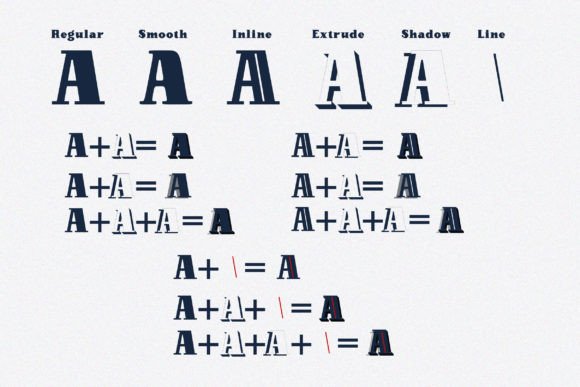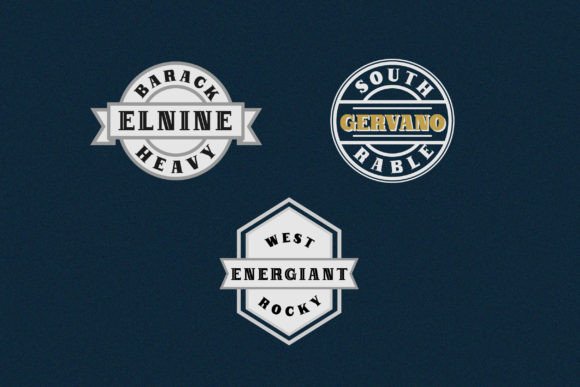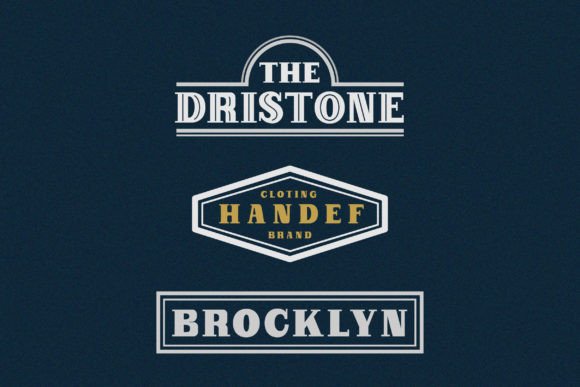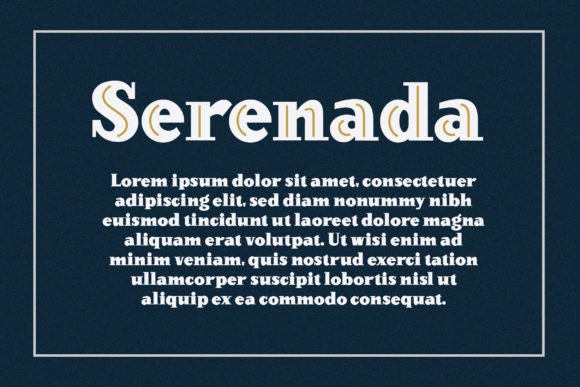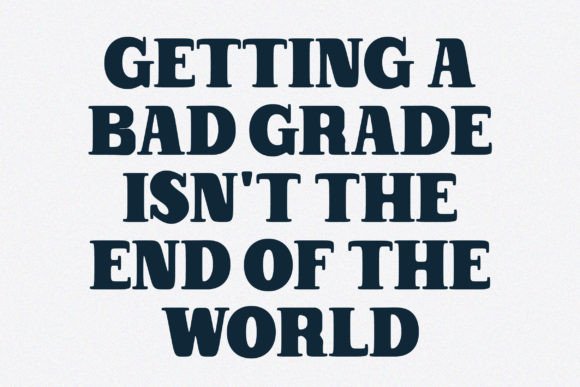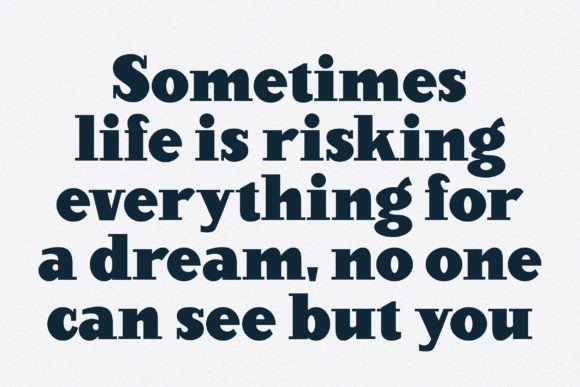
Introducing Diffan Font: Elevate Your Designs with a Unique Serif Display Typeface
In the world of typography, a good font can make all the difference in creating visually stunning designs. For designers and crafters looking to add a touch of elegance and sophistication to their work, Diffan Font is an excellent choice. This serif display typeface is designed to enhance the look of any design project, making it perfect for creating logos, headlines, layouts, and more.
What is Diffan Font?
Diffan Font is a carefully crafted serif display typeface that boasts a unique and distinctive style. Its design features a classic serif structure with an added layer that enhances the overall look and feel of the font. This extra layer adds a level of depth and dimensionality to the font, making it stand out from other serif typefaces.
Key Features of Diffan Font
So, what makes Diffan Font so special? Here are some of its key features:
• Unique Serif Design: Diffan Font features a classic serif design with a twist. The serifs are carefully crafted to add a touch of elegance and sophistication to any design project.
• Added Layer: The added layer in Diffan Font enhances the overall look and feel of the font, giving it a level of depth and dimensionality that sets it apart from other serif typefaces.
• Display Font: Diffan Font is designed specifically as a display font, making it perfect for use in headlines, logos, and other design elements where you want to make a statement.
• Versatile: Despite its unique design, Diffan Font is incredibly versatile and can be used in a wide range of design projects, from branding and advertising to packaging and more.
Why Choose Diffan Font?
With so many fonts to choose from, why should you choose Diffan Font for your design projects? Here are just a few reasons:
• Elegant and Sophisticated: Diffan Font adds a touch of elegance and sophistication to any design project, making it perfect for designers and crafters who want to create high-end designs.
• Unique and Distinctive: Diffan Font’s unique design makes it stand out from other serif typefaces, ensuring that your designs will grab attention and leave a lasting impression.
• Easy to Read: Despite its ornate design, Diffan Font is incredibly easy to read, making it perfect for use in headlines and other design elements where readability is key.
How to Use Diffan Font
So, how can you use Diffan Font in your design projects? Here are a few ideas to get you started:
• Logos: Diffan Font is perfect for creating logos that need to make a statement. Its unique design and elegant feel make it an excellent choice for branding and identity design.
• Headlines: Diffan Font is designed specifically as a display font, making it perfect for use in headlines and titles. Its bold and eye-catching design ensures that your headlines will grab attention.
• Layouts: Diffan Font can also be used to create stunning layouts for brochures, flyers, and other marketing materials. Its elegant design and easy readability make it an excellent choice for body text and headings.
In conclusion, Diffan Font is an exceptional serif display typeface that is sure to elevate your design projects. Its unique design, elegant feel, and versatility make it an excellent choice for designers and crafters looking to create stunning logos, headlines, layouts, and more. With Diffan Font, you can add a touch of sophistication and elegance to any design project, ensuring that your work stands out from the crowd.